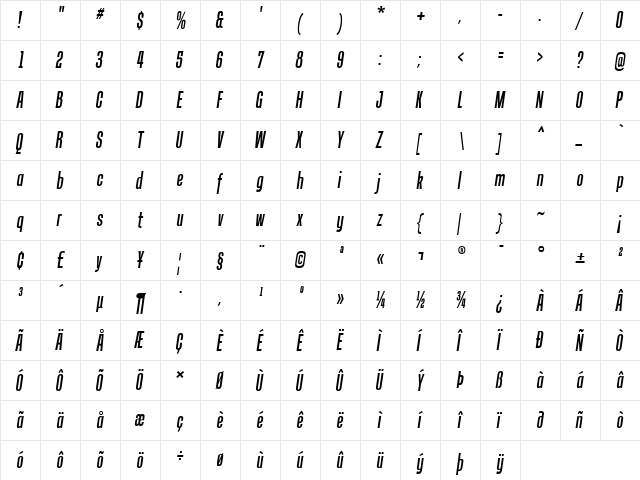
Tandelle Italic
Design Context for Tandelle Typeface
Tandelle is a composed and adaptable typeface that performs quietly and consistently across a wide range of design contexts. The slanted form adds forward momentum and visual energy.
Pro Tip: Try Tandelle for annotation and caption copy alongside an upright companion — the contrast in angle creates a dynamic but ordered typographic system.